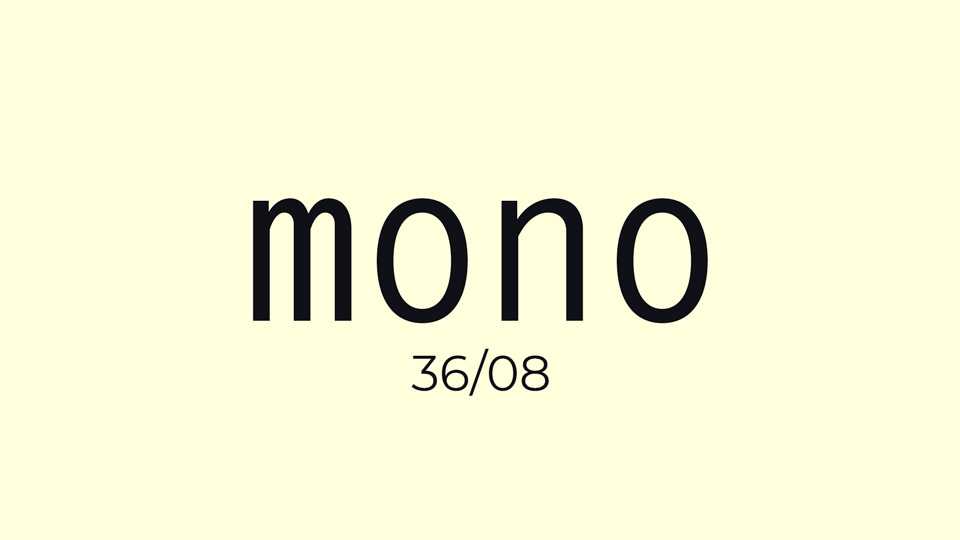
Download Mono font, a simple monospaced typeface containing only lowercase letters. There are a lot of tricks to help balance the letter widths in a monospace font, the most obvious being the horizontal bars.
Designer: Justin Penner